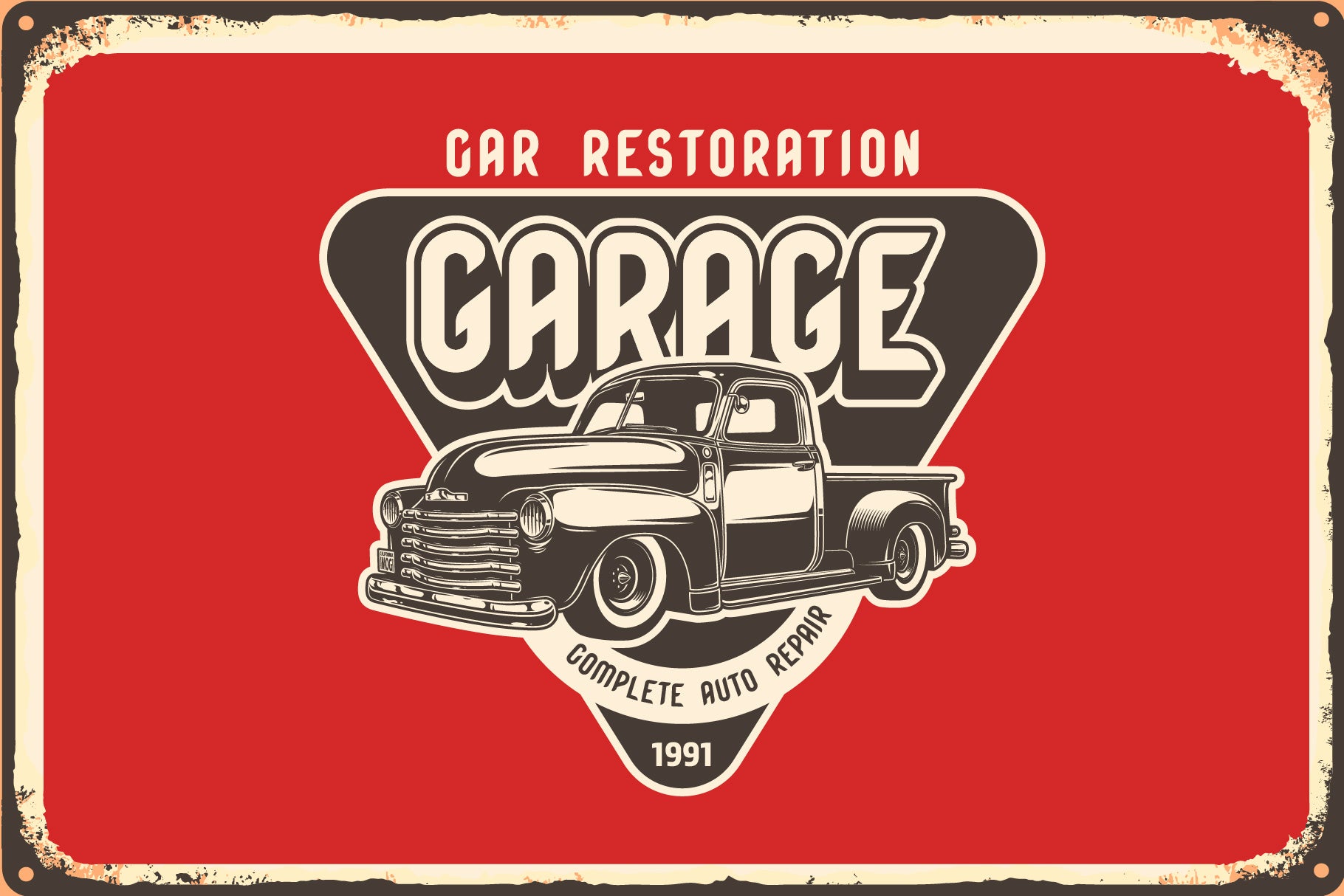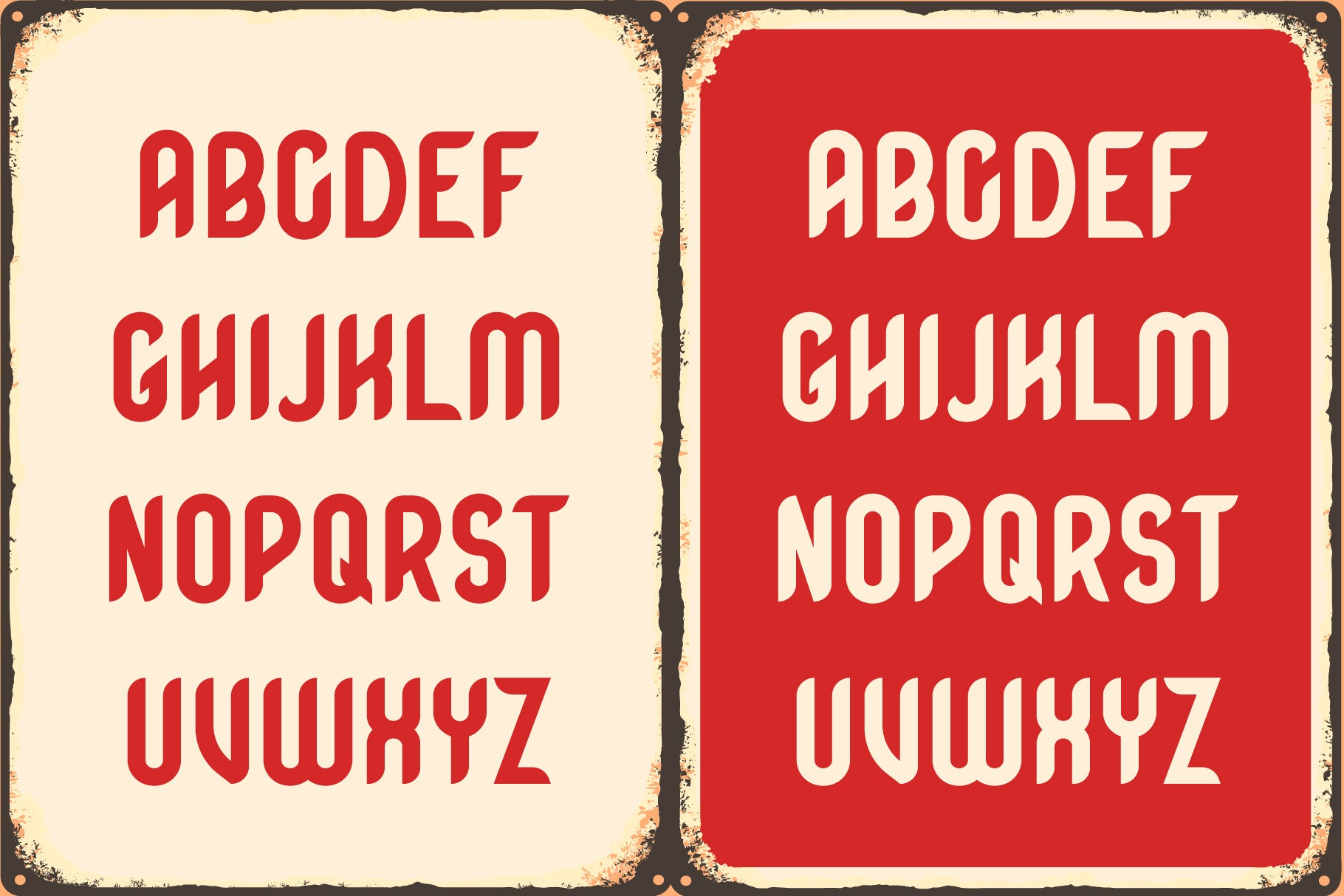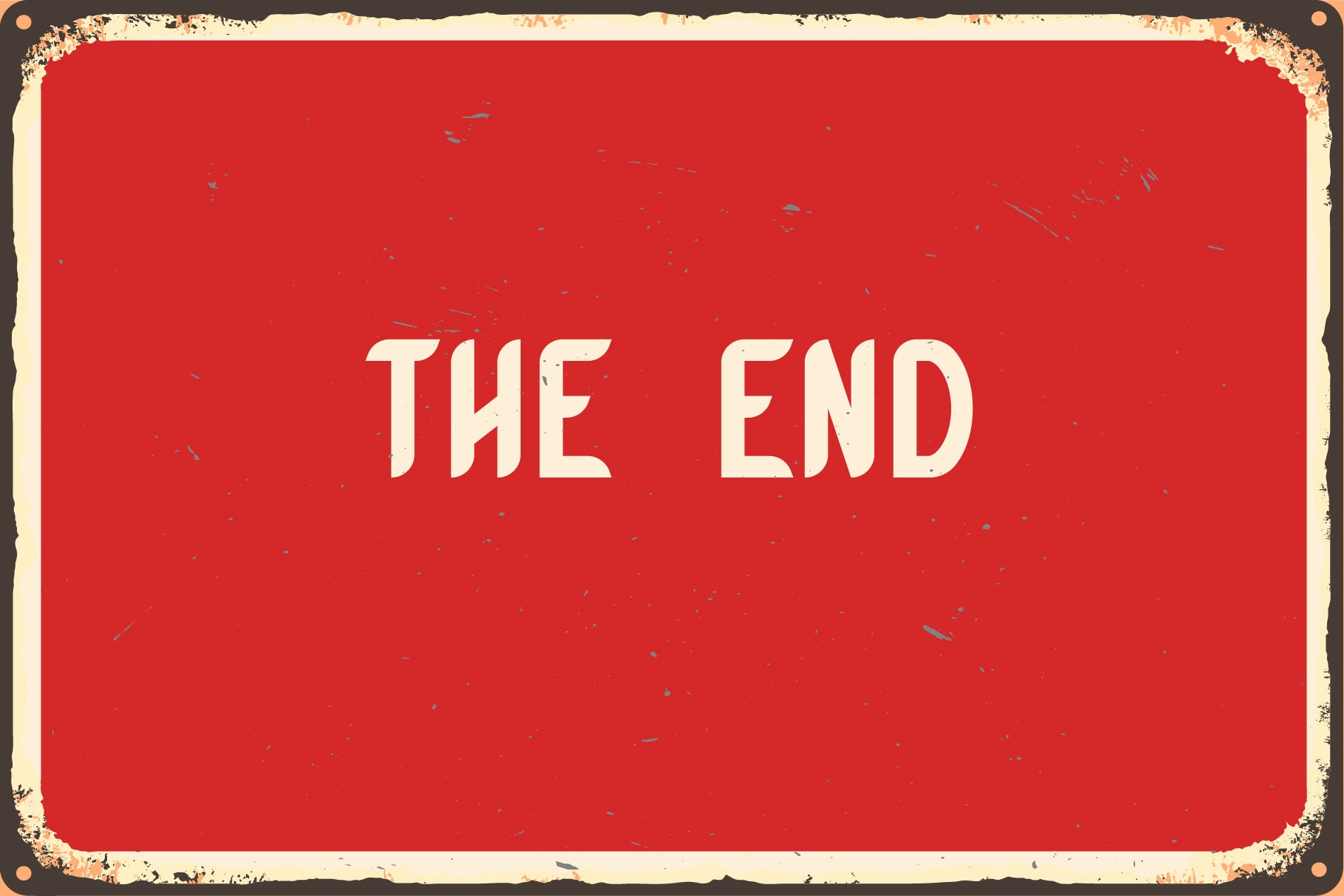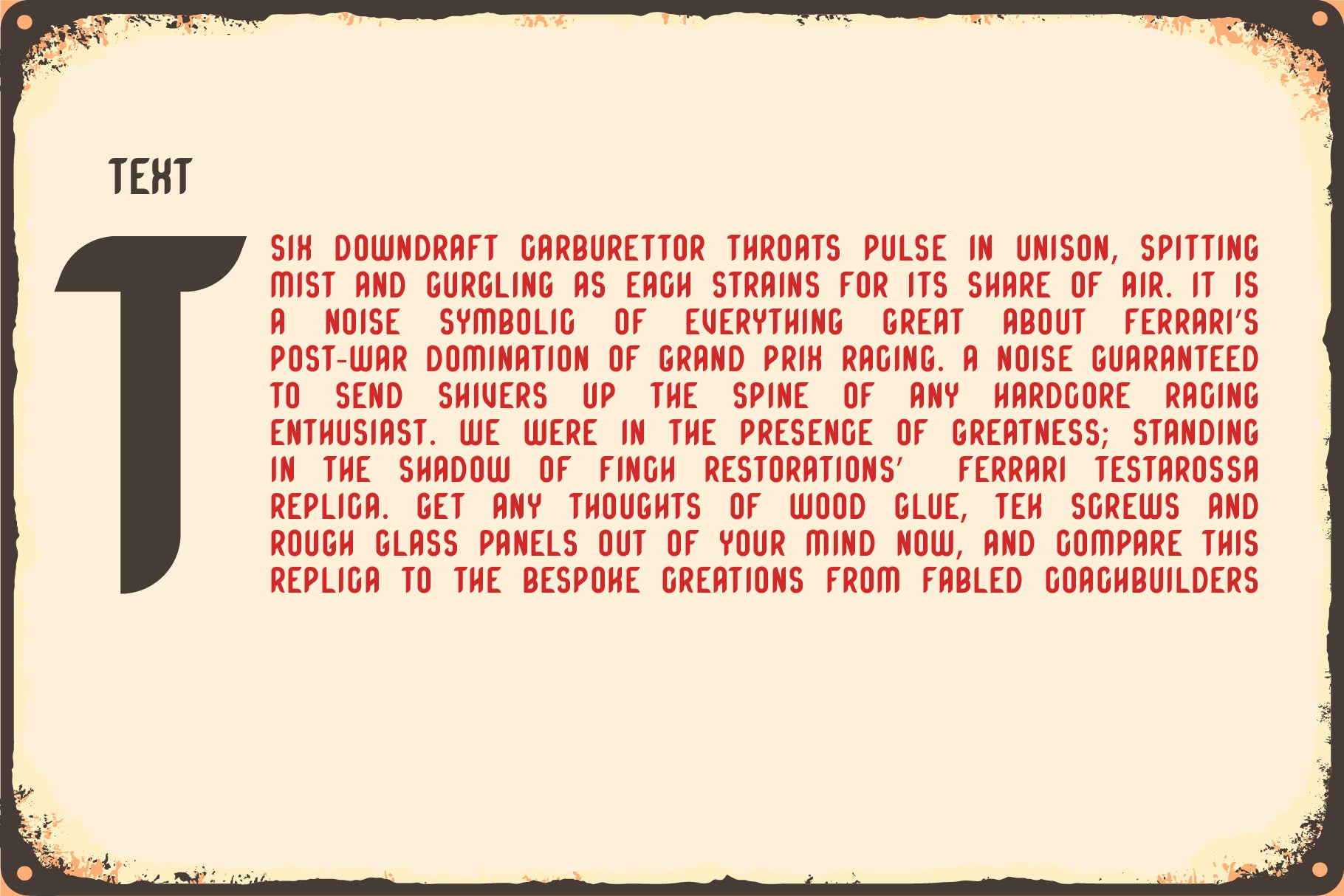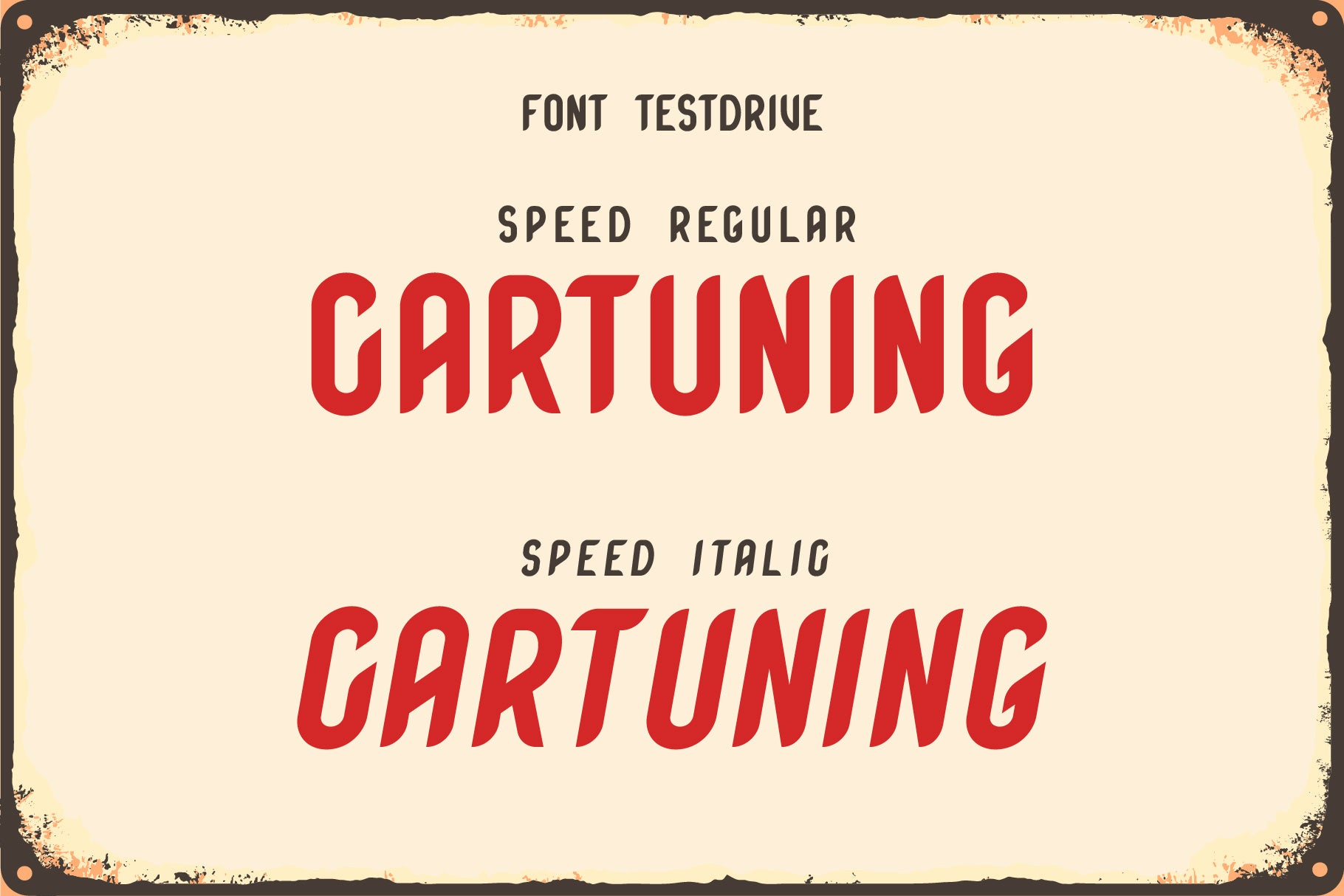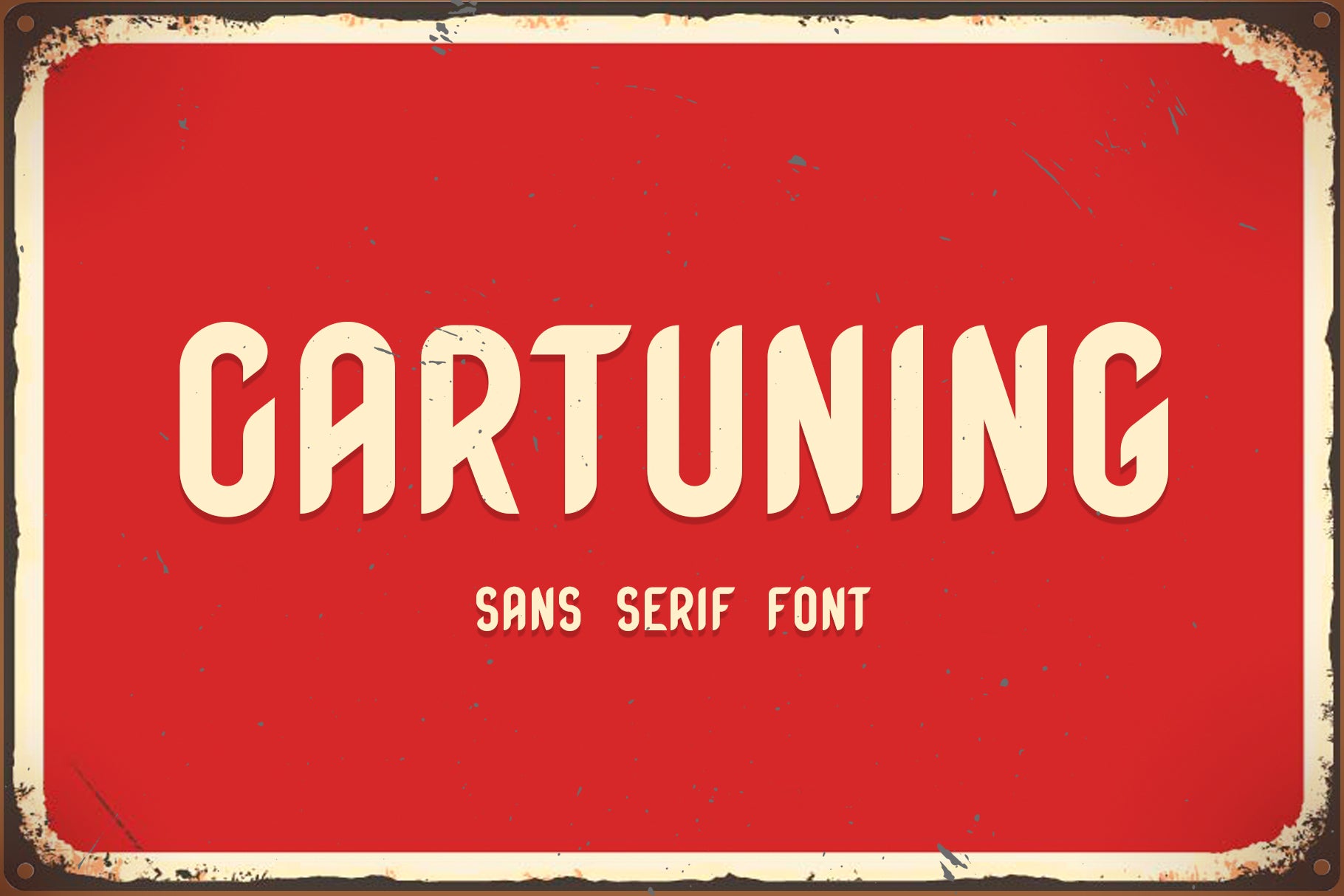
Cartuning Font
Cartuning is a bold, condensed vintage sans-serif display font inspired by classic automotive signage and garage culture.
Its rounded yet muscular letterforms carry a slight retro warp, echoing weathered tin advertising signs from the golden age of motoring.
The typeface comes in both Regular and Italic styles for flexible layouts.
Works especially well for racing and automotive branding, garage and workshop signage, retro posters, and merchandise.
– Full uppercase alphabet
– Numbers and basic punctuation
– Font type: Sans serif display